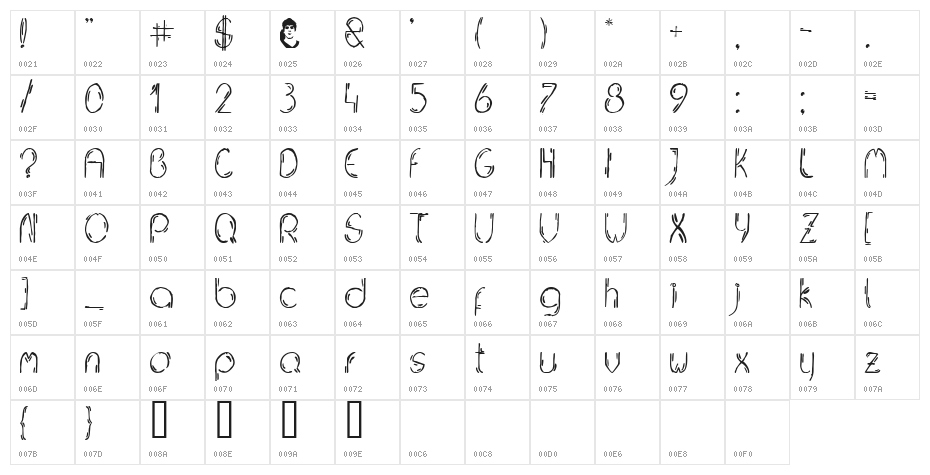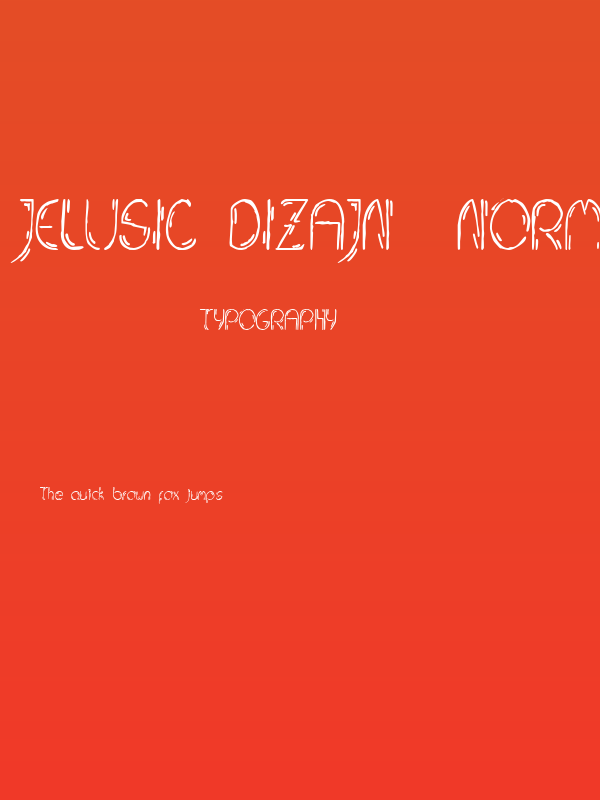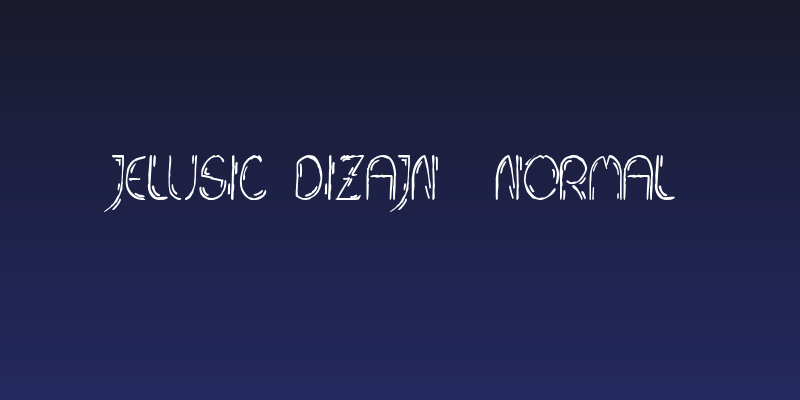
Jelusic Dizajn Normal Font
Jelusic Dizajn Normal Description
This font features a unique, artistic design with a hand-drawn appearance. The characters are composed of irregular, brush-like strokes that give it a dynamic and expressive feel. The uppercase and lowercase letters maintain a consistent style, with a playful and slightly chaotic arrangement of lines that form each character. The numbers and special characters follow the same design principles, adding to the font's cohesive look. This font stands out due to its creative and unconventional style, making it suitable for projects that require a bold and artistic touch.
| Overall Style | Artistic, Expressive |
| Use Case | Logos, Posters, Creative Branding |
| Proposed Projects | Ideal for artistic projects, posters, album covers, and creative branding. |